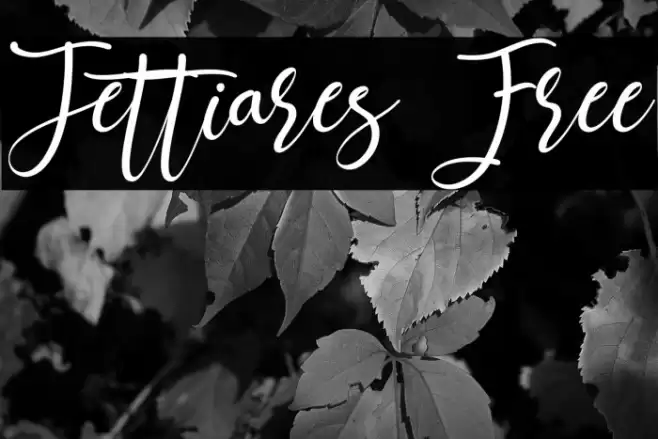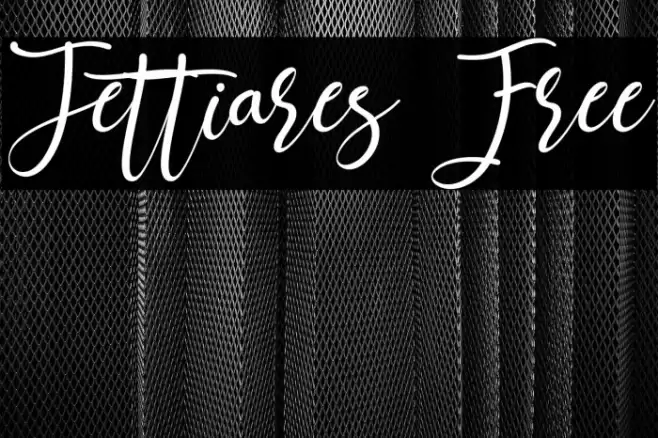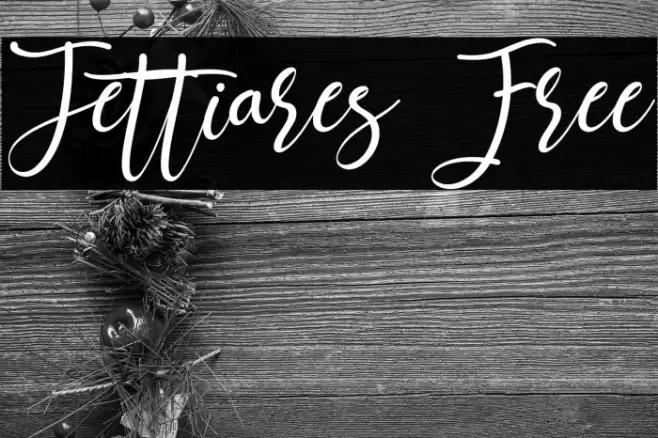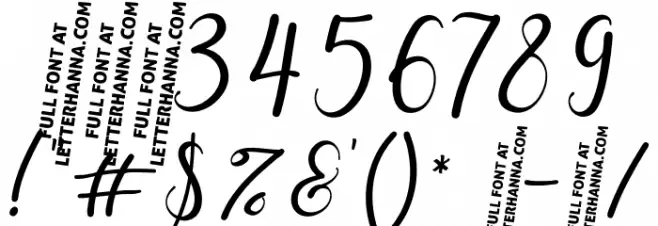
Jettiares Free Font
Jettiares Free Description
This font features a flowing, cursive style with elegant loops and swashes, giving it a handwritten appearance. The uppercase letters are tall and slender, while the lowercase letters have a more rounded and playful form. The numbers maintain the same fluidity, making them cohesive with the alphabet. Special characters are designed with the same attention to detail, ensuring consistency throughout. The overall look is sophisticated yet approachable, suitable for a variety of creative applications.
A cursive, handwritten-style font with elegant loops and swashes from Handwritten fonts.
- Font: Jettiares Free
- Proposed Projects: Ideal for wedding invitations, greeting cards, branding, and social media graphics.
- Use Case: Logos, Invitations, Social Media